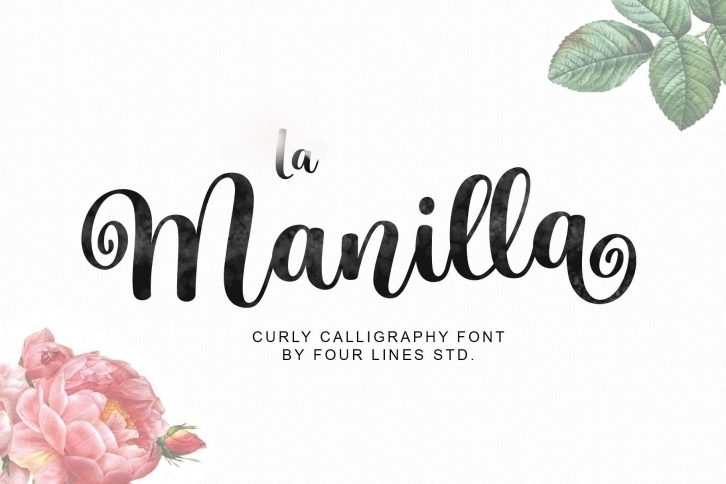
La Manilla is a sweet calligraphy font that features magical curly-shaped swashes. Fall in love with its authentic feel and use it to create gorgeous wedding invitations, beautiful hand-lettered art, eye-catching social media posts, and cute greeting cards.